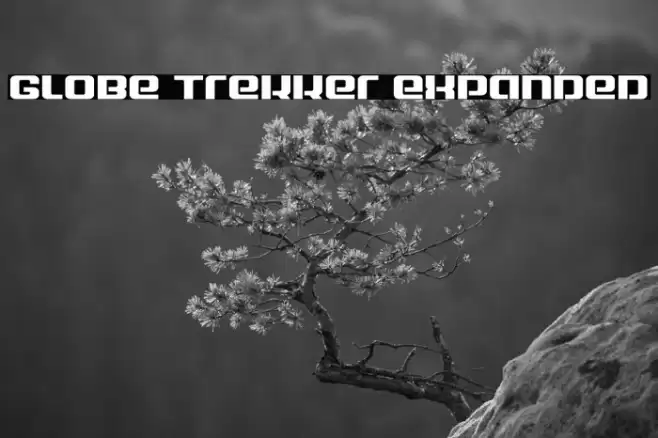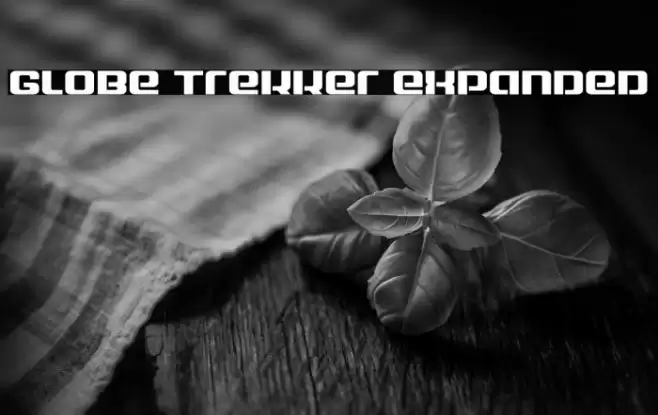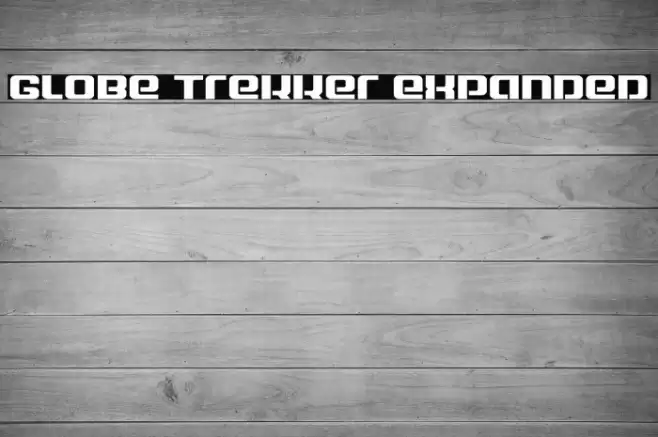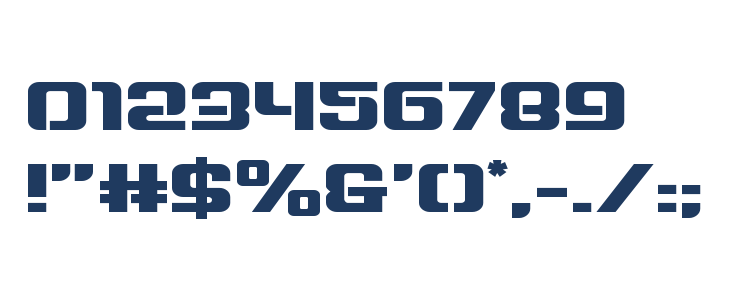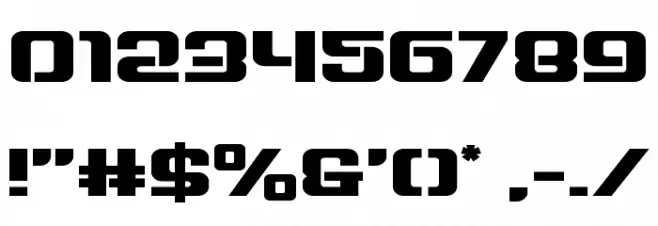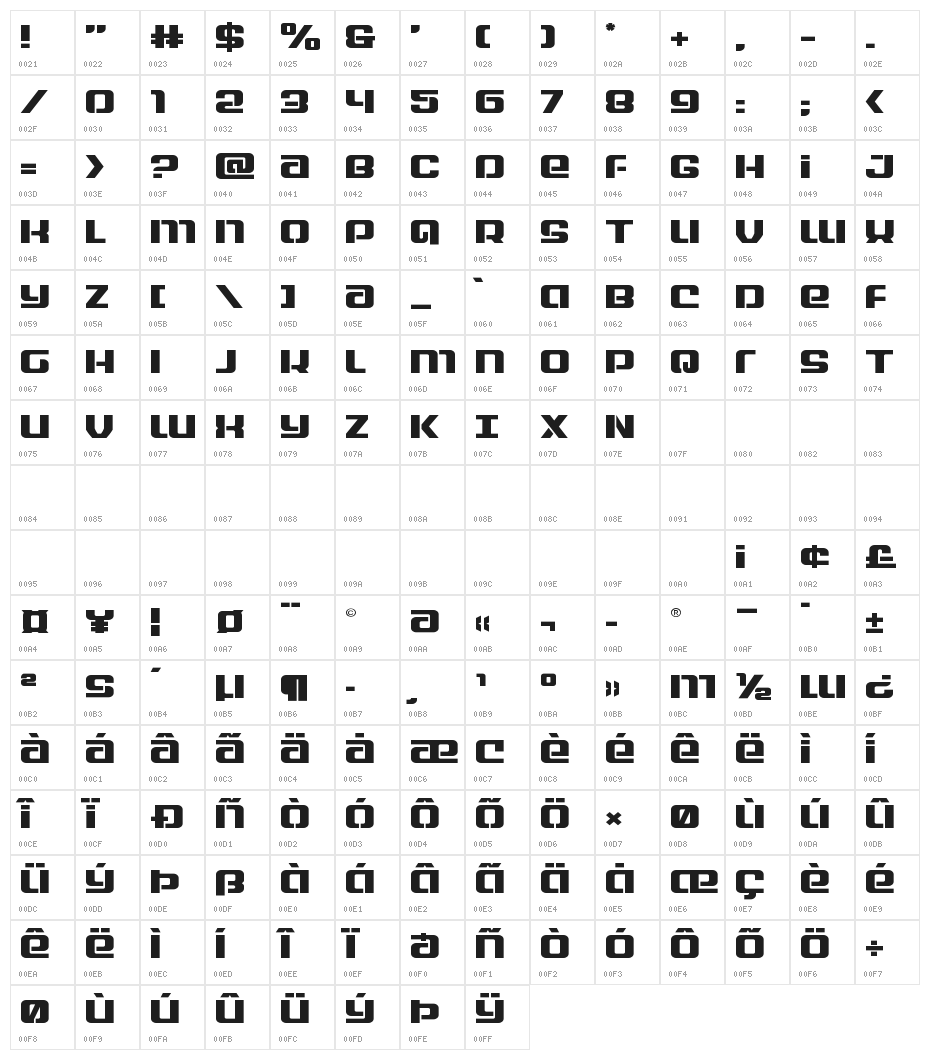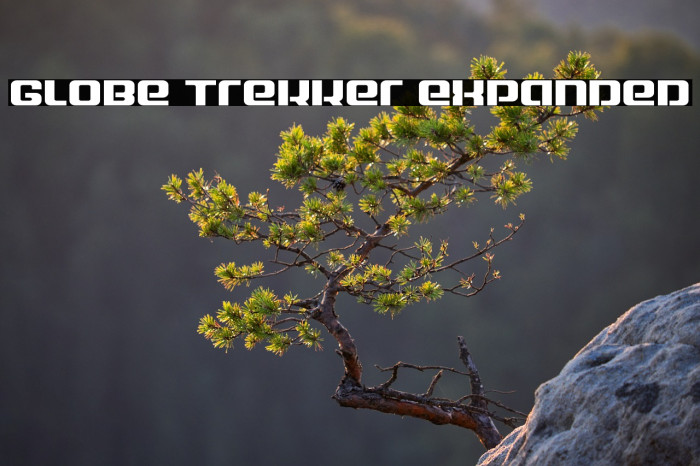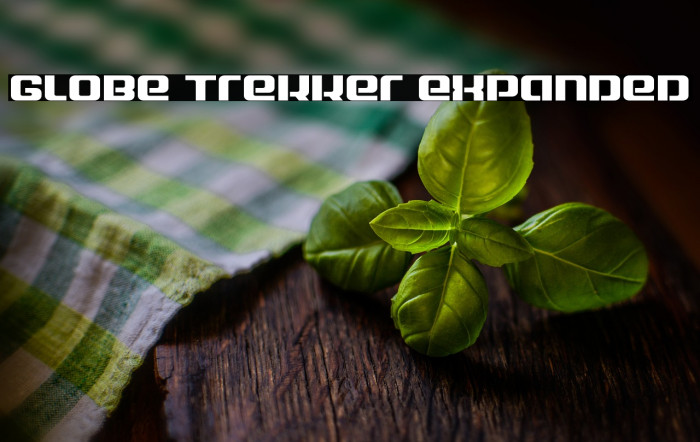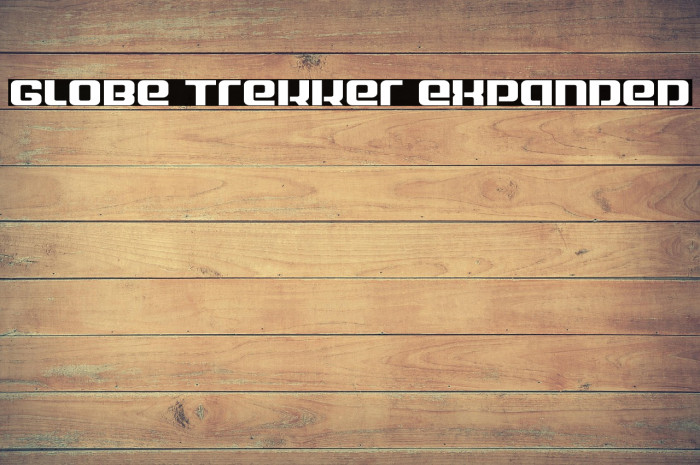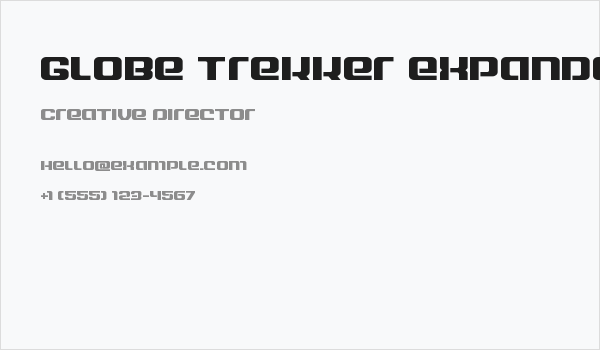
Globe Trekker Expanded Font
Globe Trekker Expanded Description
This font features a bold, futuristic design with a distinctly geometric and expanded style. The characters are wide and blocky, with a uniform thickness that gives them a strong, impactful presence. The design incorporates sharp angles and clean lines, creating a modern and industrial feel. The uppercase and lowercase letters maintain a consistent style, with the lowercase letters mirroring the uppercase in form but slightly reduced in size. The numerals and special characters follow the same design principles, ensuring a cohesive look across all glyphs. This font's expanded width and bold weight make it particularly suitable for attention-grabbing headlines and display purposes.
A bold, geometric font with an expanded, futuristic style from Uncategorized fonts.
- Proposed Projects: Ideal for sci-fi themed designs, technology branding, video game titles, and modern posters.
- Overall Style: Futuristic
- Use Case: Headlines, Logos, Display